im having trouble identifying a font -_- help would be much appreicated
so I'm trying to recreate the heading off an album I really like. if anyone knows what font is close to the heading "GLASS" please let me know. I have no idea how to identify this font. I tried those sites n submitted but no luck. it looks like box letters with a slight slant. thanks to all those who help me.
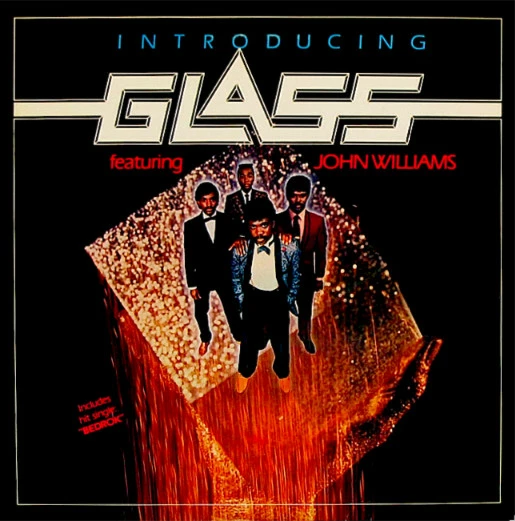
I will agree with others here, as it doesn't show up, or closely match anything which appears on the font comparison sites it seems to have been created as a graphic rather than a font being used.
I would say your best bet will be to recreate it.
I believe it was (custom) made as normal vector artwork, no font.
This is most probably custom type.
most def , I need a simple font that I can edit I know I can recreate it, just im having trouble finding a font that has box edges.
If you know how to recreate it, then why not just go ahead?